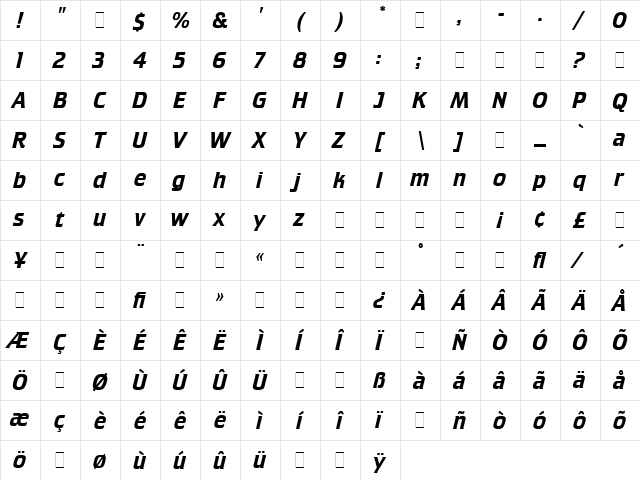
Crillee Italic LET Regular
Design Context for Crillee Italic LET Typeface
Crillee Italic LET takes a measured approach to typography — its balanced proportions and neutral character make it a reliable workhorse for both digital and print work. The dynamic lean of this cut emphasises speed and emphasis in any layout.